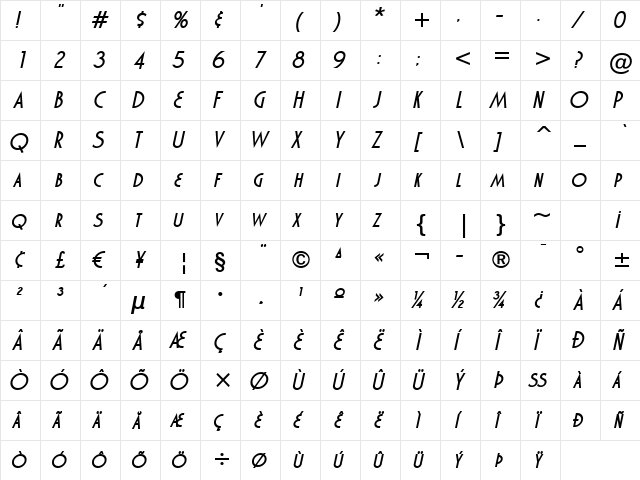
Marquisette BTN BoldOblique
Design Context for Marquisette BTN Typeface
Marquisette BTN offers clean, dependable letterforms without strong stylistic allegiance, making it a practical choice for designers who need flexibility. Its italic angle brings a sense of urgency and motion to the letterforms. The heavy weight commands attention and anchors typographic hierarchies.